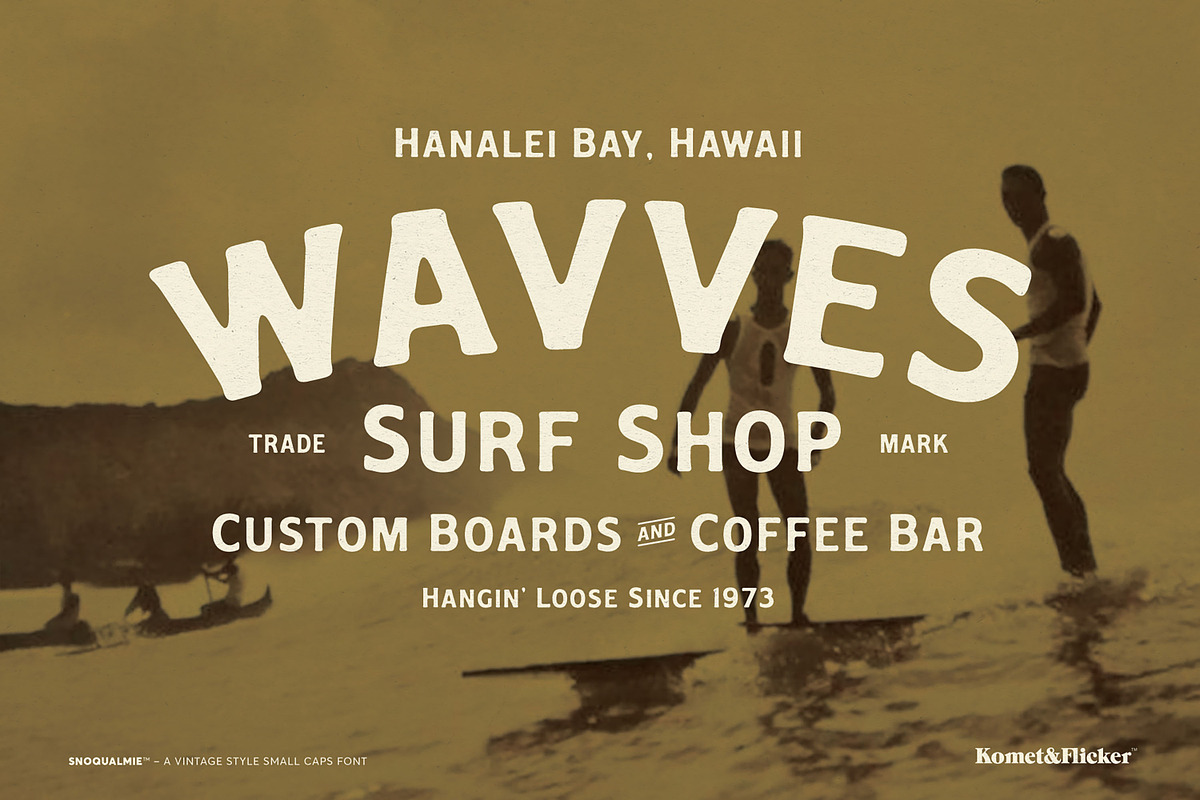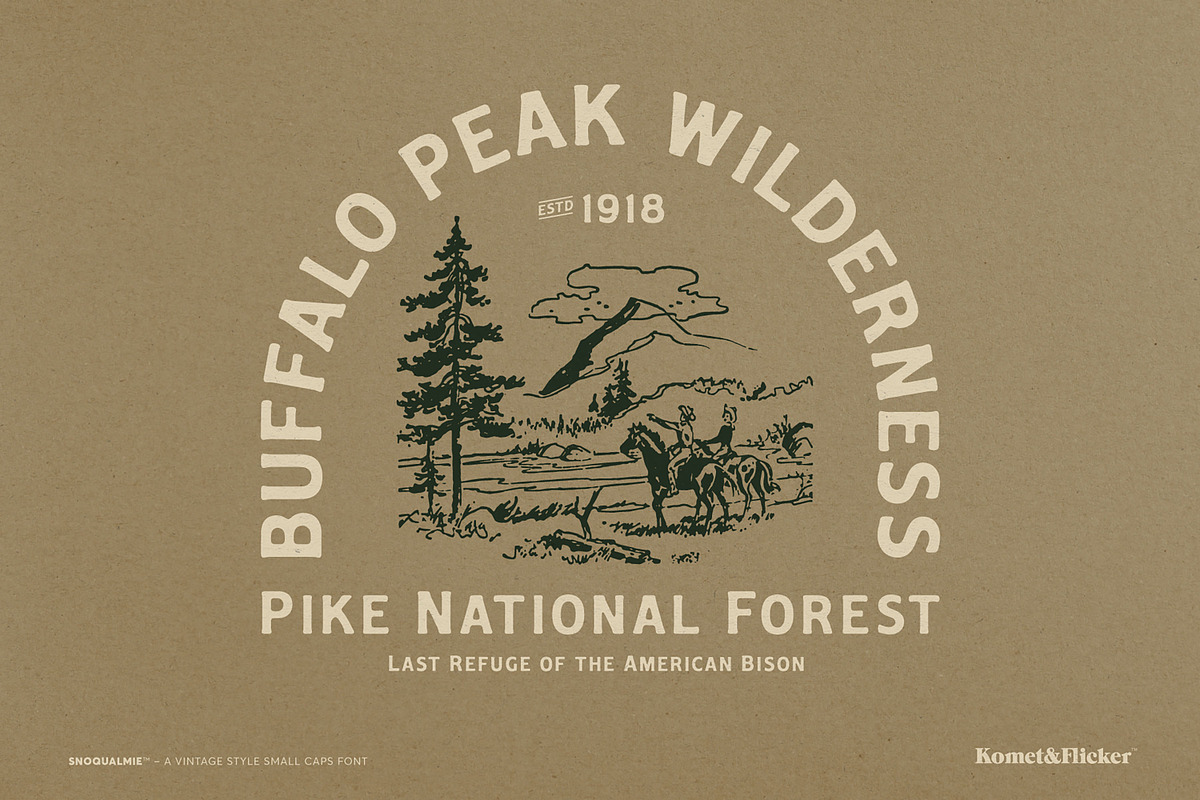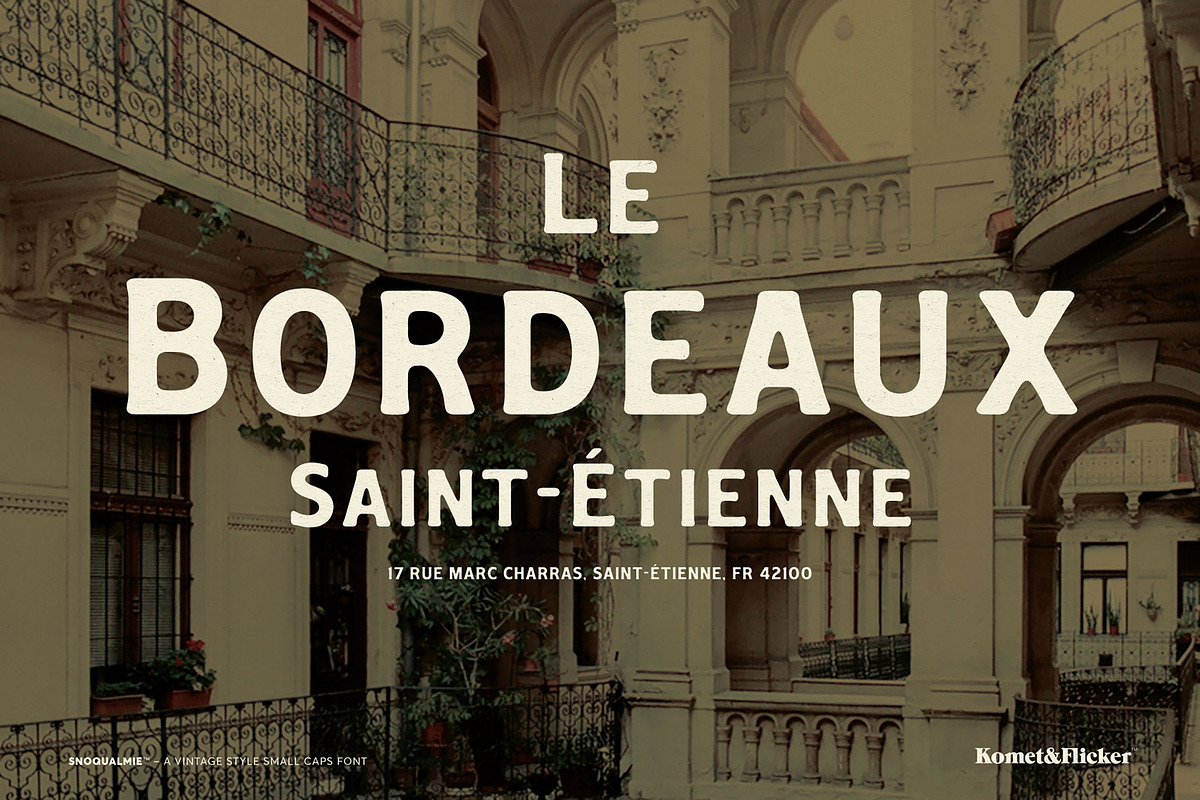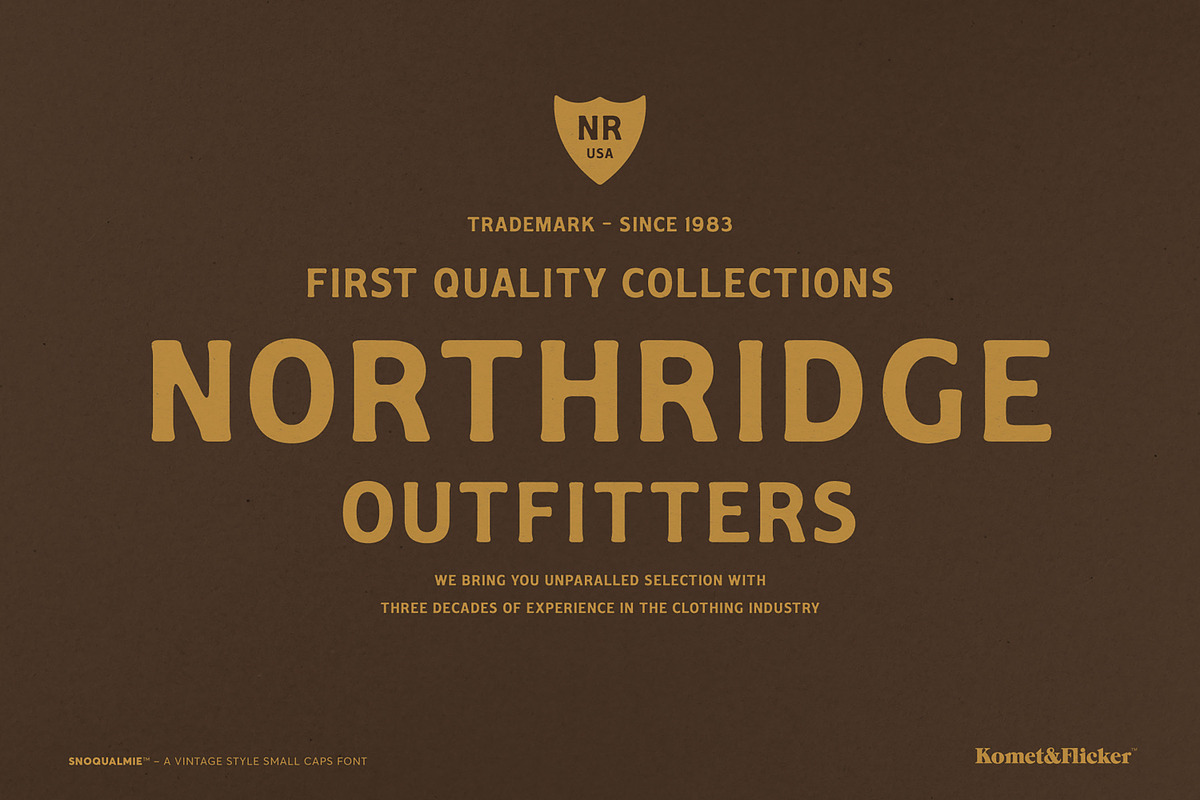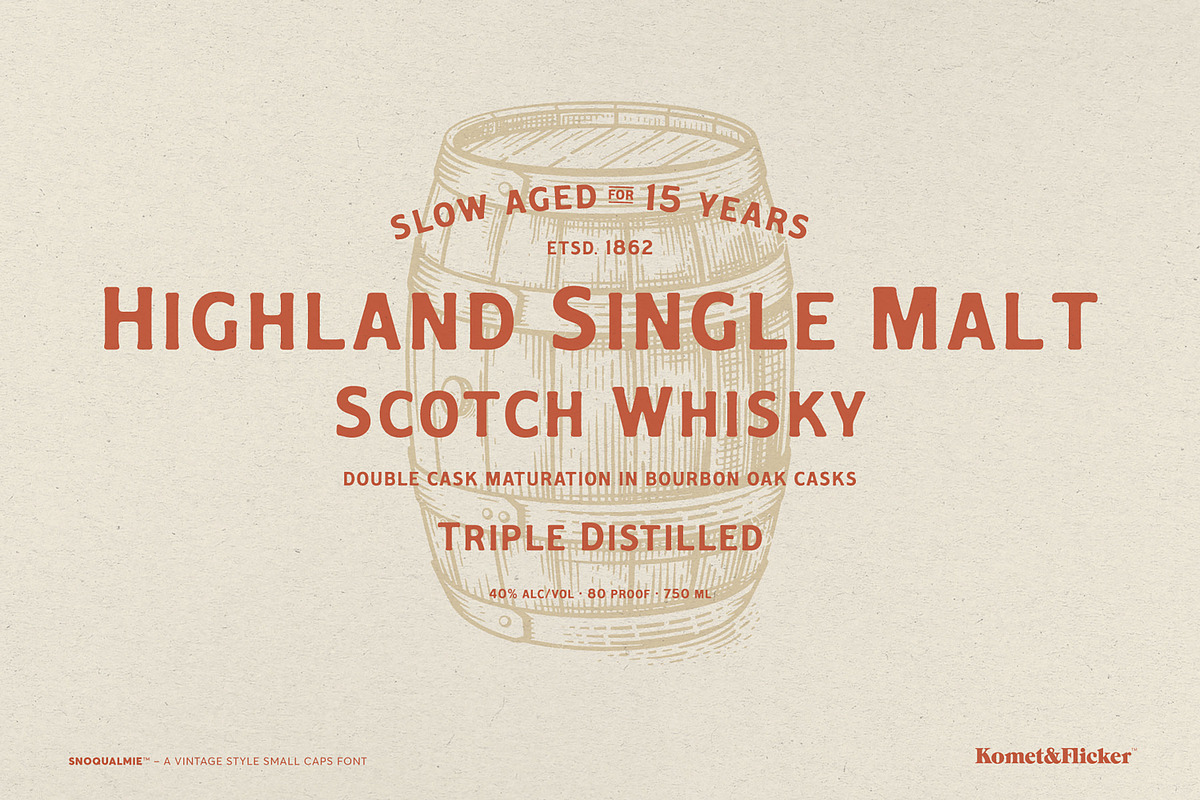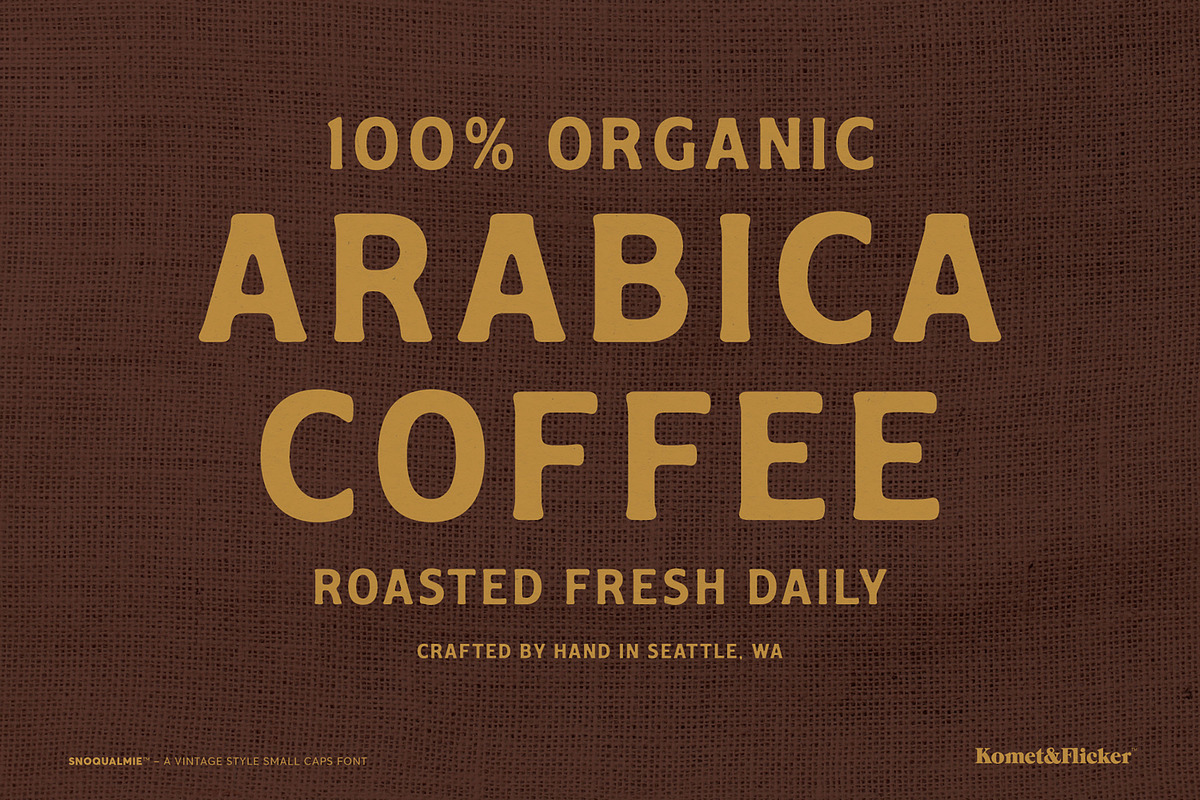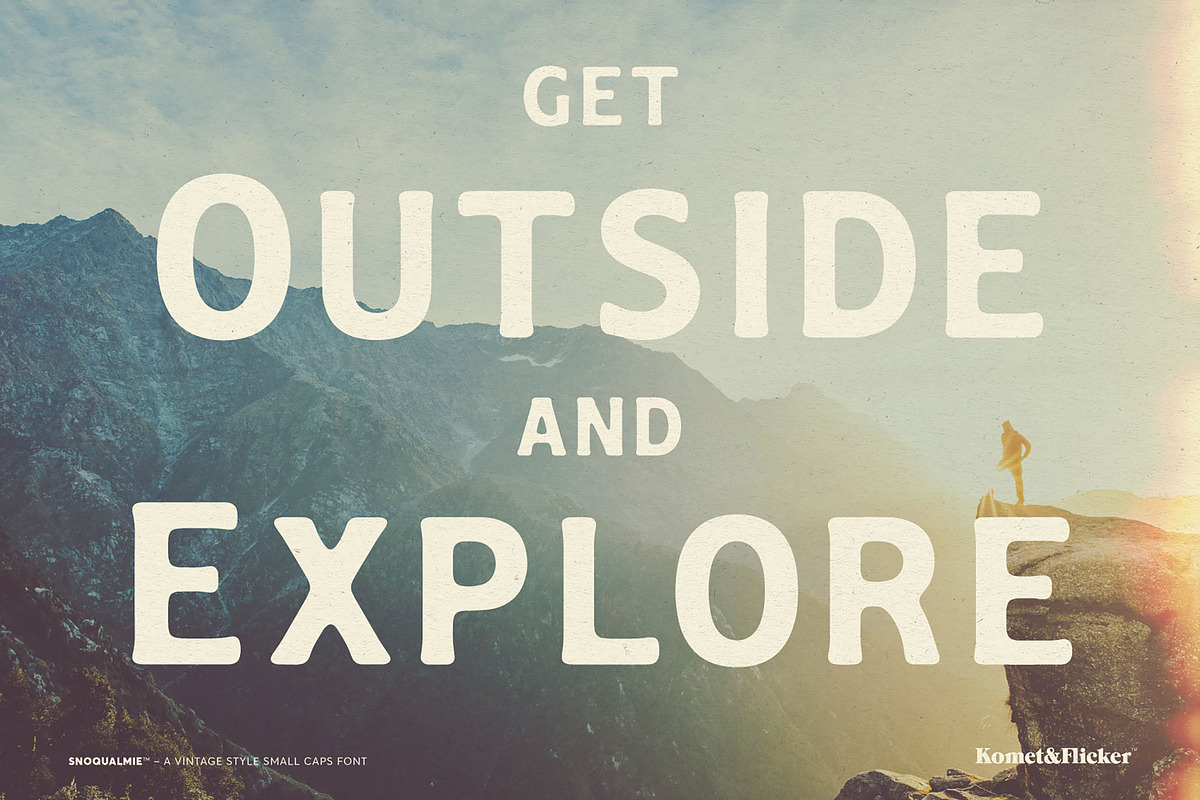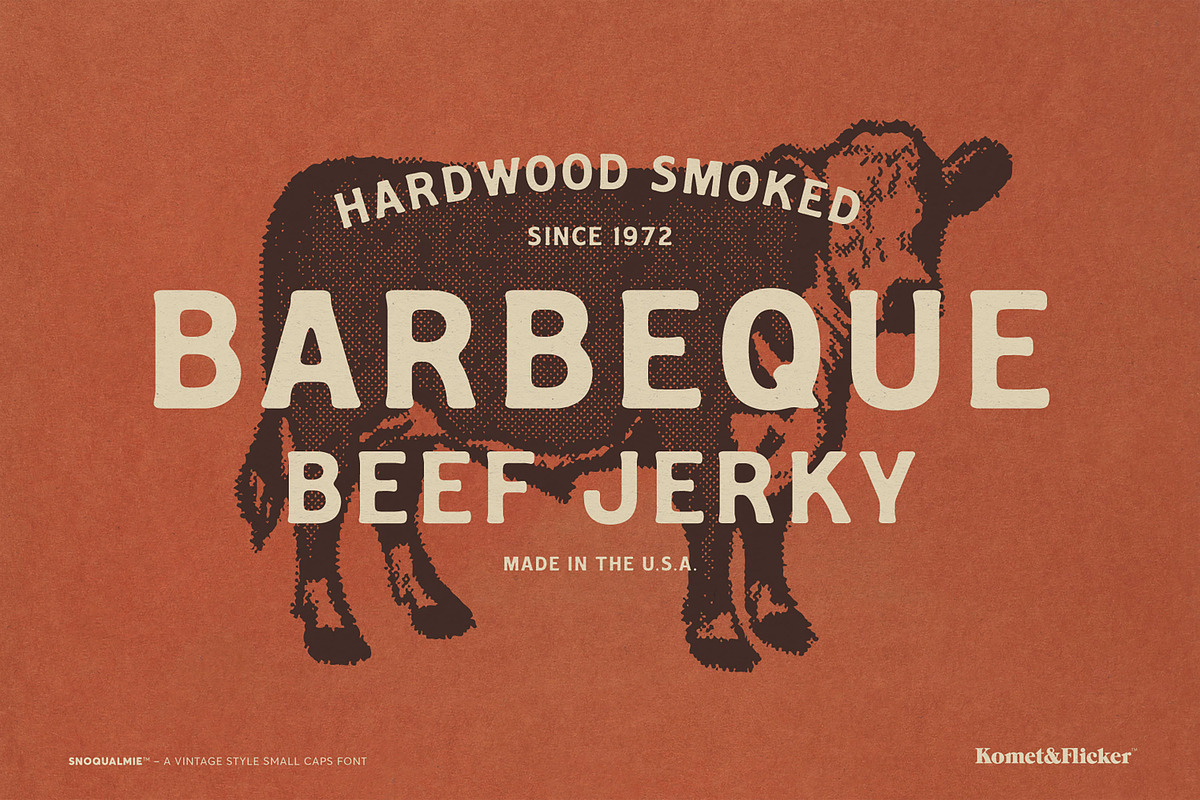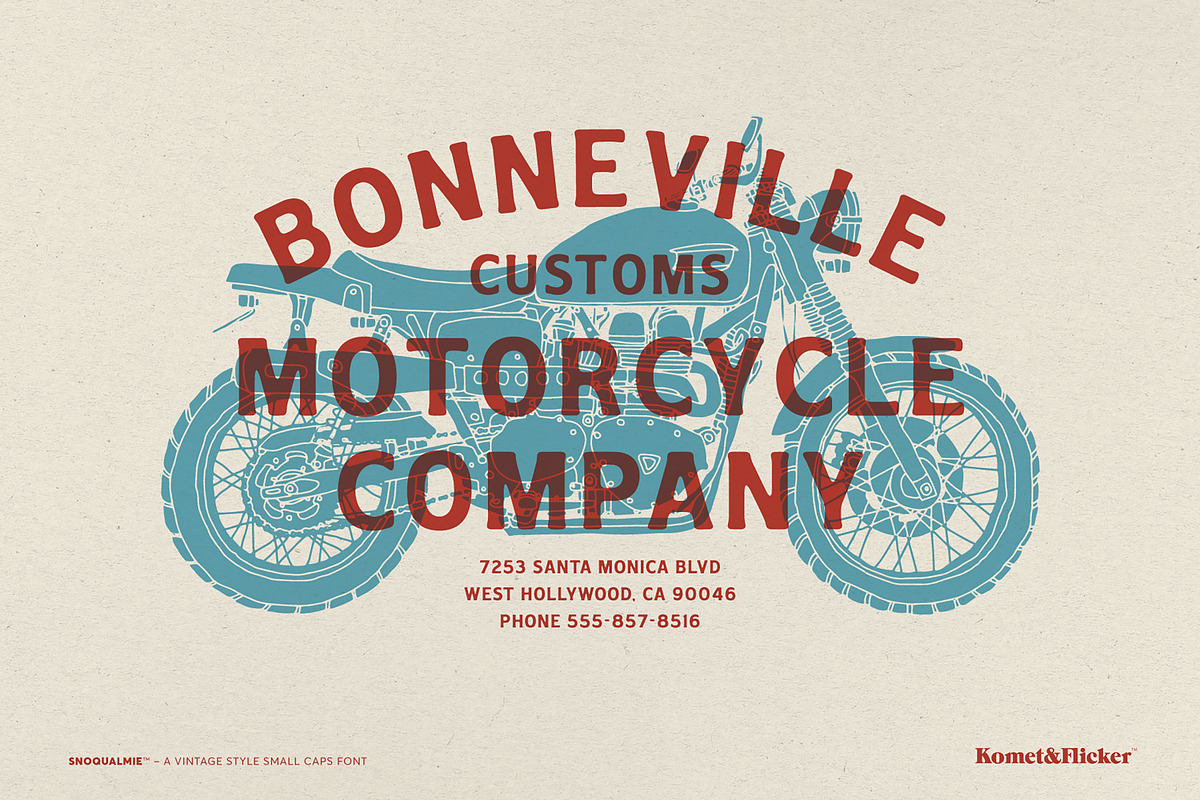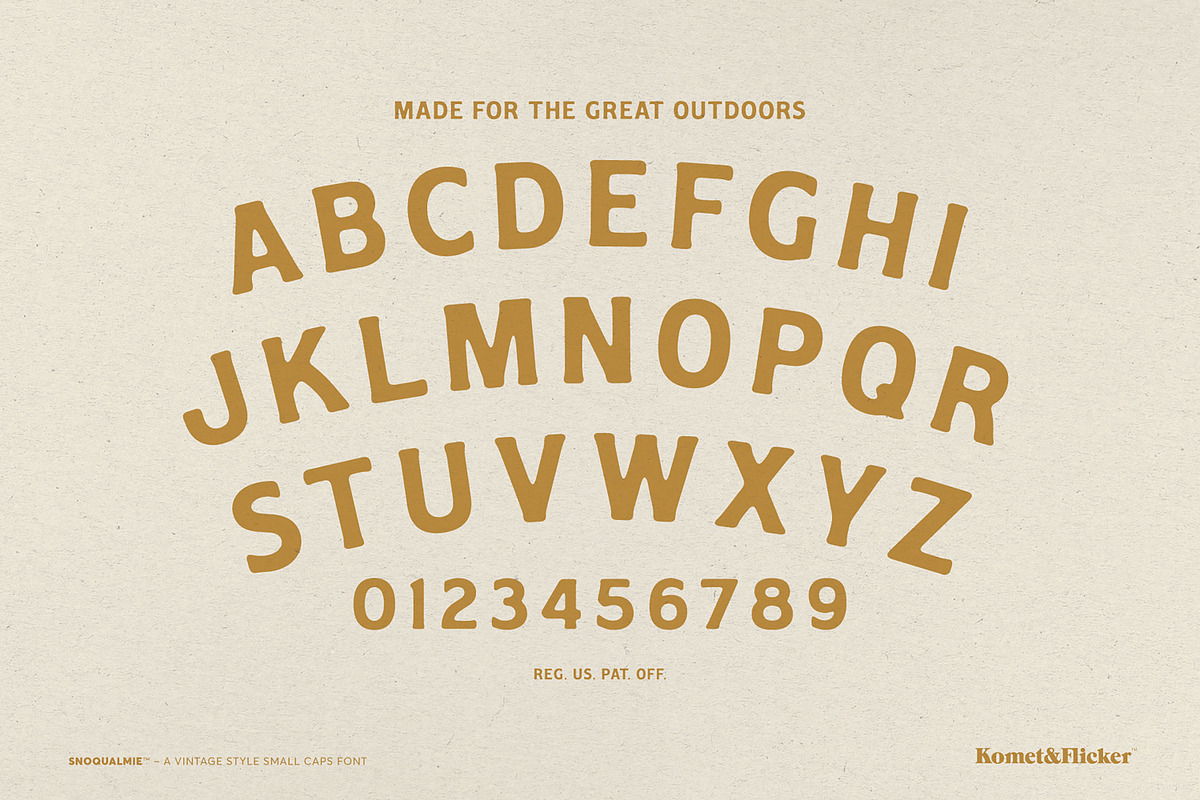
Snoqualmie - A Vintage Style Font
Introducing Snoqualmie, a rustic vintage-style font that brings a touch of nostalgia to your projects. This small caps typeface exudes a rugged, well-worn feel, effortlessly evoking a sense of authenticity and warmth.
Perfectly suited for outdoor-themed designs, cozy coffee shop branding, vintage apparel, and artisanal beer & spirits labels, Snoqualmie transforms any text into a statement of character and style. Its unique letterforms not only catch the eye but also resonate with a timeless quality.
To elevate your creative work even further, Snoqualmie includes a special set of 10 custom connecting words (in two styles for a total of 20 glyphs). These additions enhance the flow of your typography, ensuring that your designs feel cohesive and polished.
Embrace the spirit of adventure and craftsmanship with Snoqualmie – the font that tells a story. Perfect for designers looking to create authentic, memorable experiences through their work.